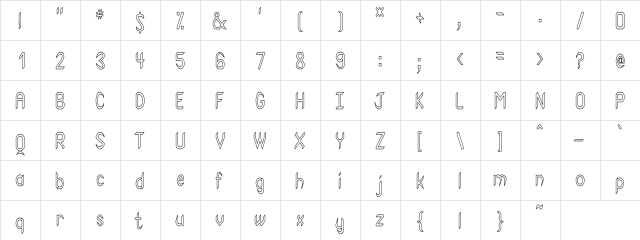
CanaithHC Regular Font Preview
CanaithHC Regular
Design Context for CanaithHC Typeface
CanaithHC is a composed and adaptable typeface that performs quietly and consistently across a wide range of design contexts.